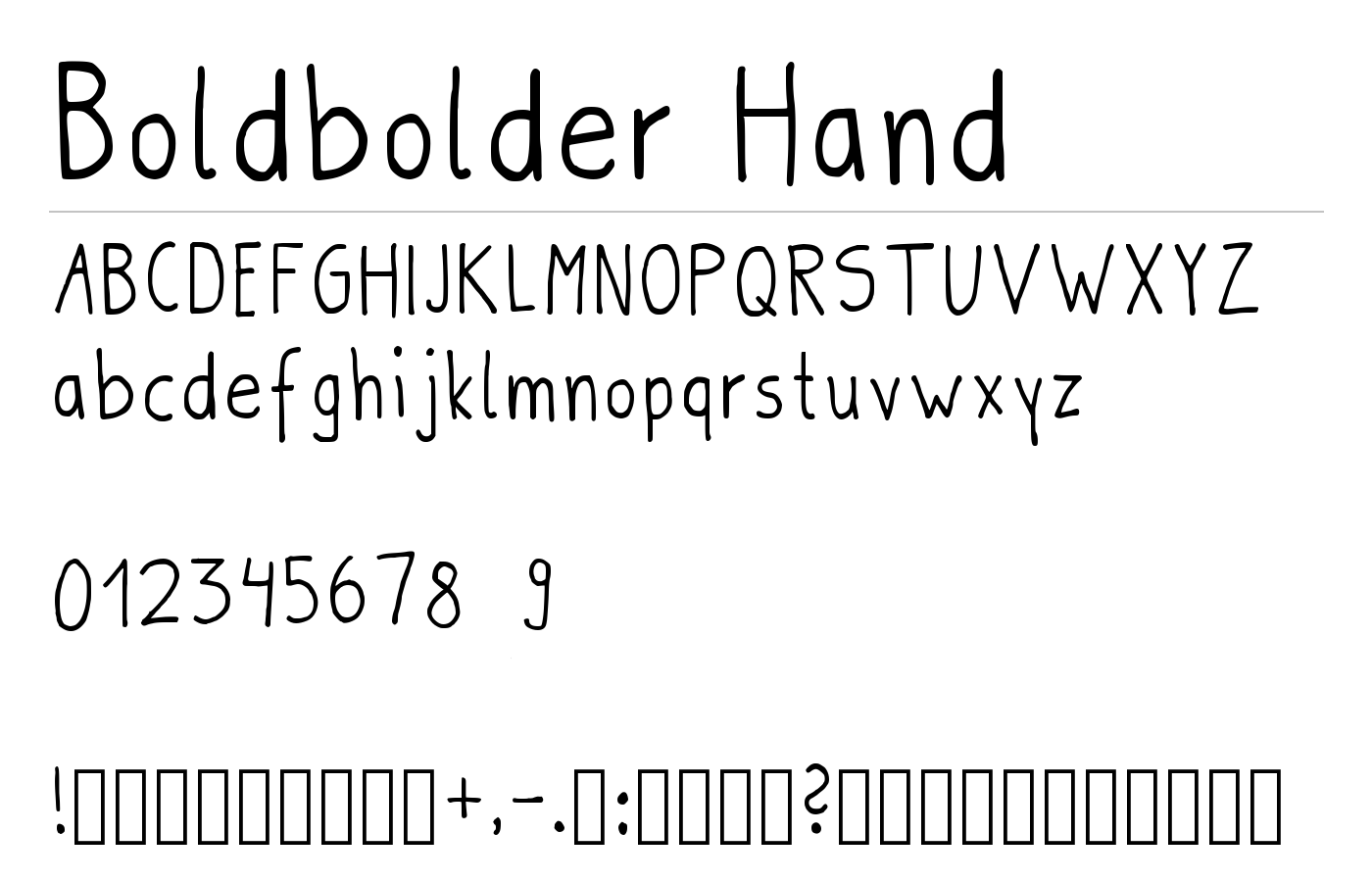
Boldbolder Hand is a casual, handwritten sans serif font with a friendly and approachable personality. Its tall, narrow letterforms feature a consistent light weight and subtle irregularities that give it a natural, authentic hand-drawn feel, making it ideal for informal designs. This font works well for playful branding, children’s products, and creative projects where a personal touch is desired.
Boldbolder Hand Font
About Boldbolder Hand Font